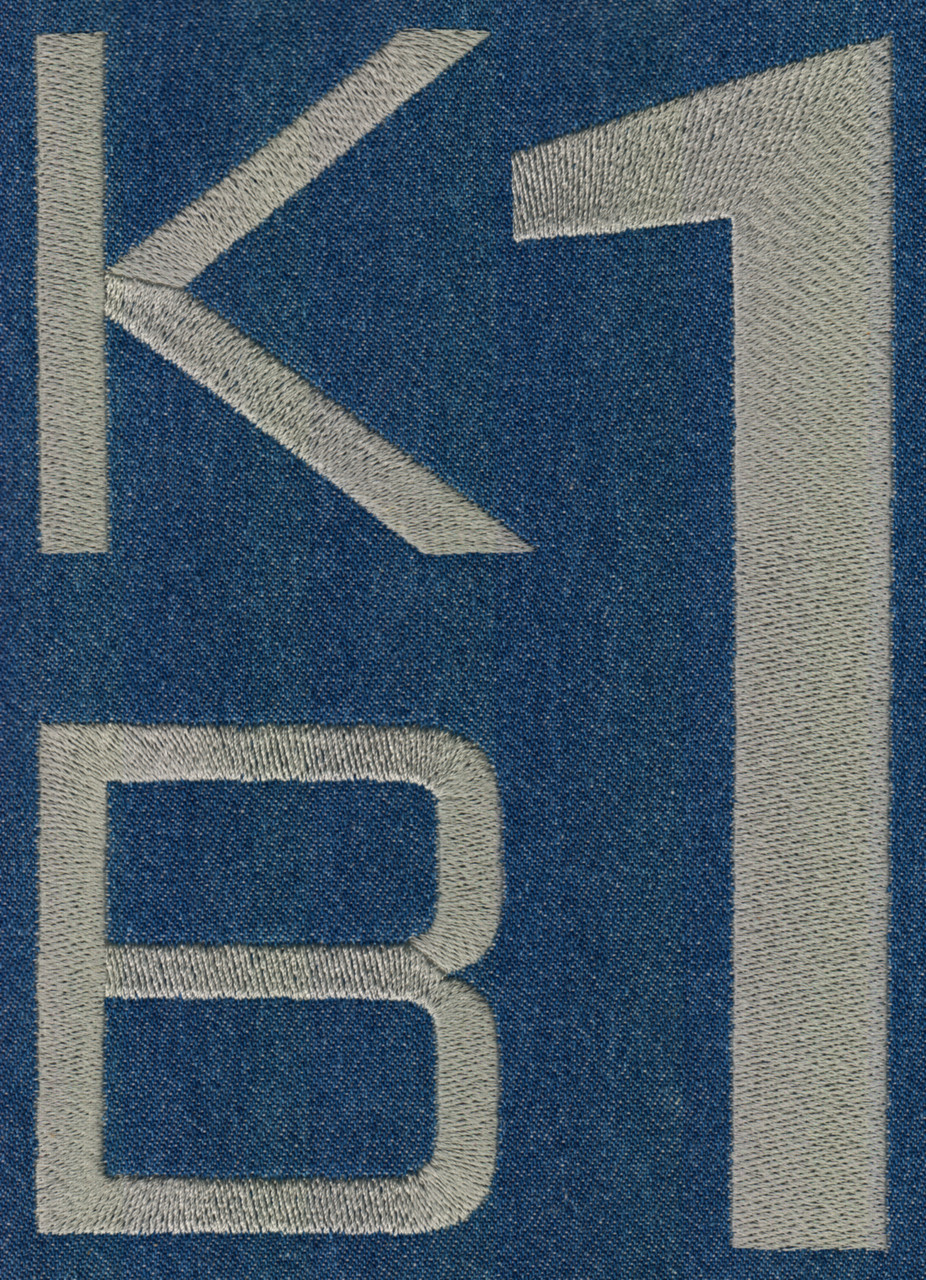
659 Bank Gothic JUMBO SatinFill Font
Bank Gothic JUMBO SatinFill Font comes in 3", 4", 5", 6" and 7" heights based on the capital "A". All sizes are included in the purchase price. Features uppercase letters, numbers and six punctuation marks (no lowercase letters in this font). There is now an addendum file to download with the Plus Sign (+). All sizes are finished in SatinFill Stitch (Click Here for SatinFill Stitch Description)